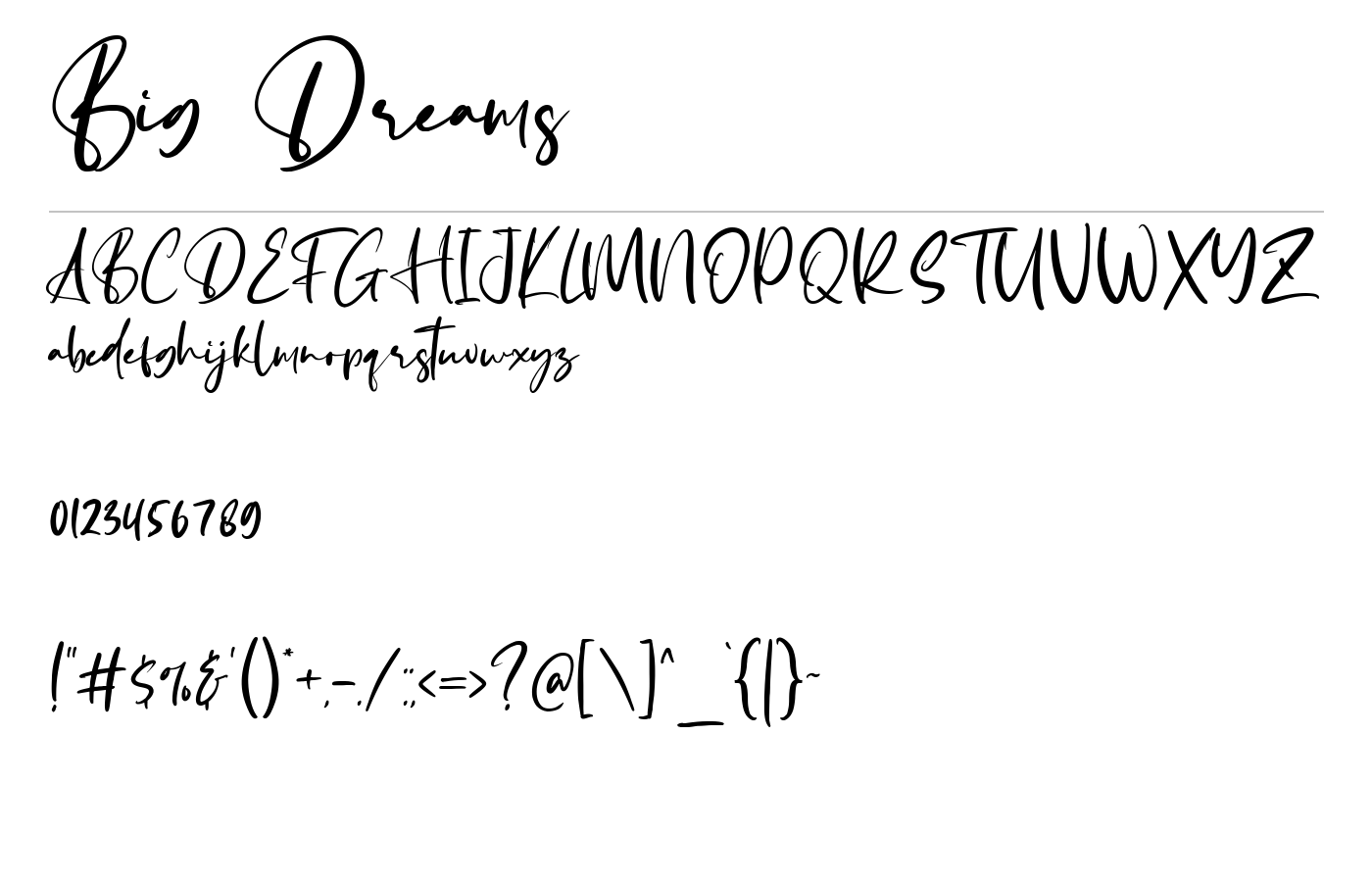
Big Dreams is a lively handwritten script font with a casual, flowing style that feels warm and personal. Its thin to medium strokes, high x-height, and slightly irregular letterforms give it an approachable and modern flair, perfect for creative branding, invitations, and social media graphics. This font shines in projects that want to evoke friendliness and a sense of cheerful optimism.
Big Dreams Font
About Big Dreams Font